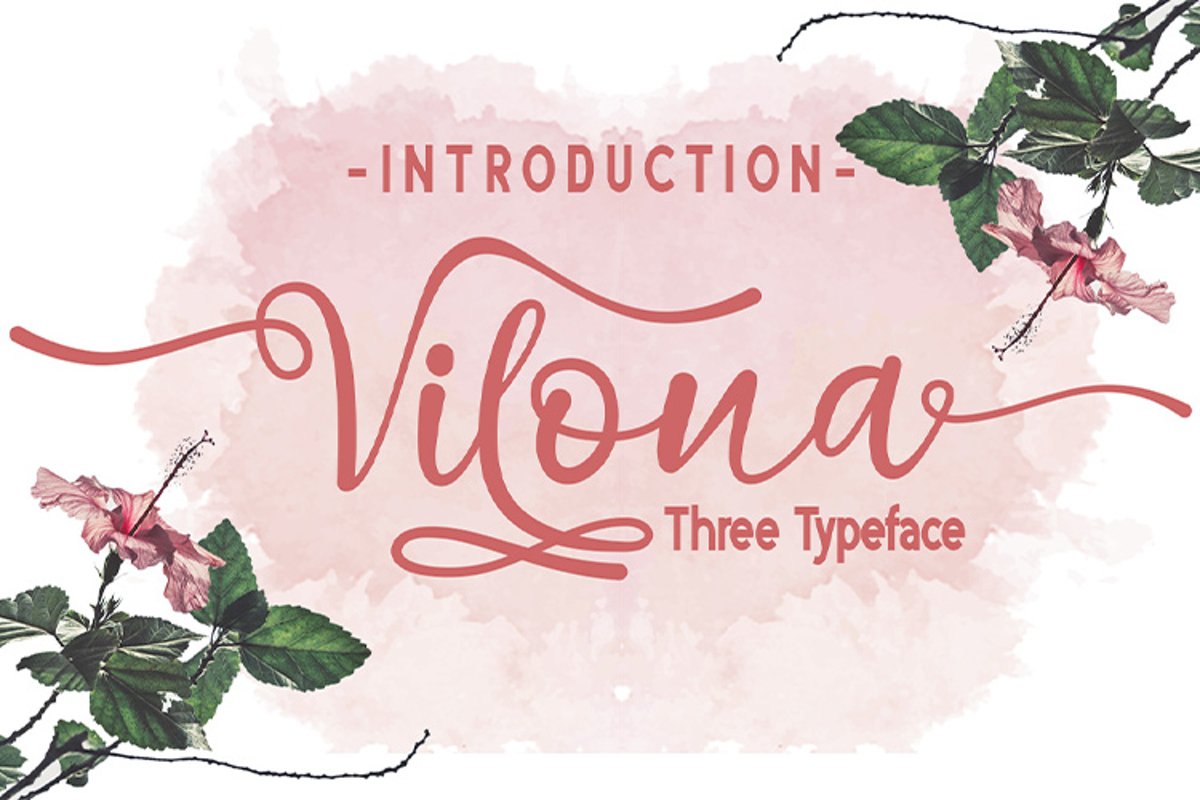
Vilona |Three Typeface
Vilona-black
Vilona-hollow
Vilona
Vilona comes with three typeface variants.  Vilona Regular is a hollow font type with alternative options suitable for fonts for magazines, posters and others. Vilona Black is a sans serif font that is dense and straightforward in shape.
Vilona italic is a beautiful font with 3 stylistic sets for uppercase and five stylistic sets for lowercase.
If all three are combined, it will show a harmonious balance that is perfect for your project. weddings, magazines, the web, applications, and whatever projects you will be working on.
1. Vilona Regular
• Vilona Regular Alt
2. Vilona Black
3. Vilona Italic
• 3 Stylistic Set A-Z
• 5 Stylistic Set a-a